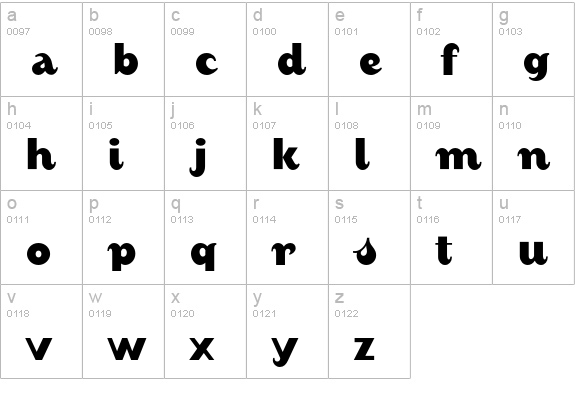
August-BoldAlternate Font Details
August-BoldAlternate is a stunning and eye-catching font that exudes confidence and boldness. Its strong and impactful design makes it perfect for headings, titles, and other prominent text elements. The alternate characters add a unique flair to your designs, making them stand out from the crowd. This font is not only visually appealing but also versatile, as it can be used for a wide range of design projects. Whether you're creating posters, logos, branding materials, or website headers, August-BoldAlternate will elevate your designs to the next level. The best part is that August-BoldAlternate is available for free download at FontsMarket.com. So you can easily access this amazing font and start using it in your projects right away. Don't miss out on the opportunity to enhance your designs with this stylish and impactful font.